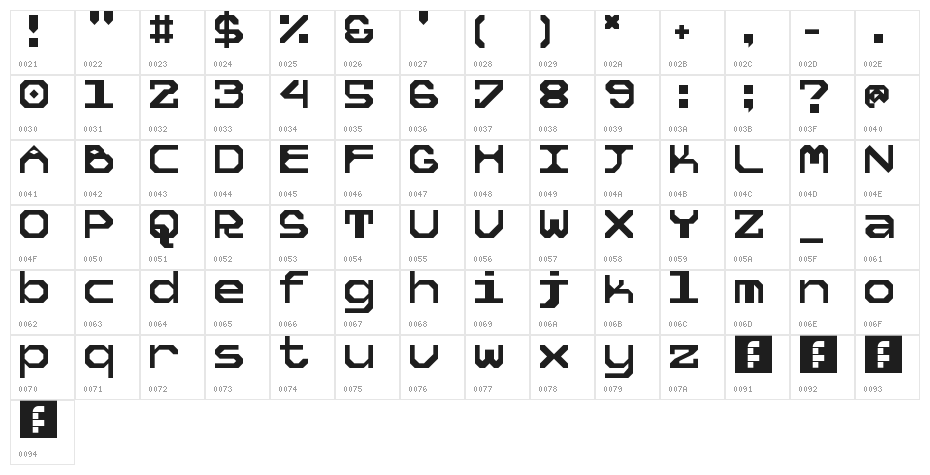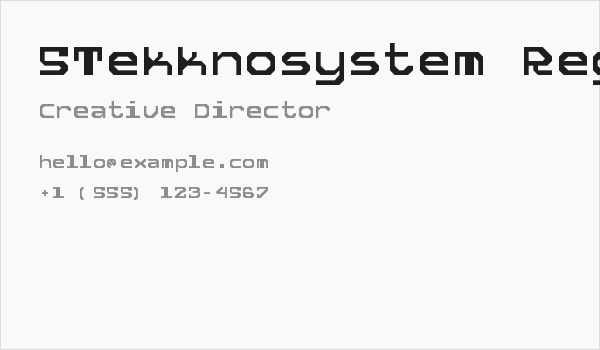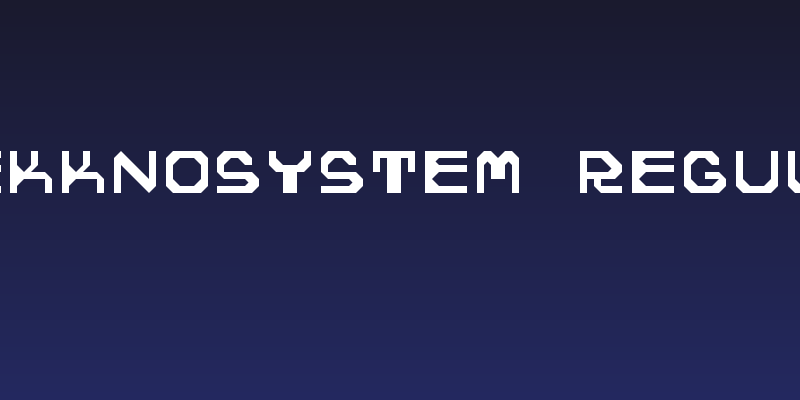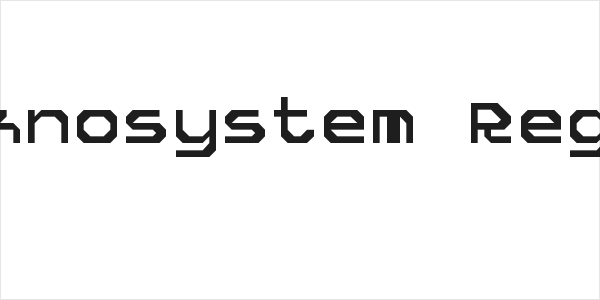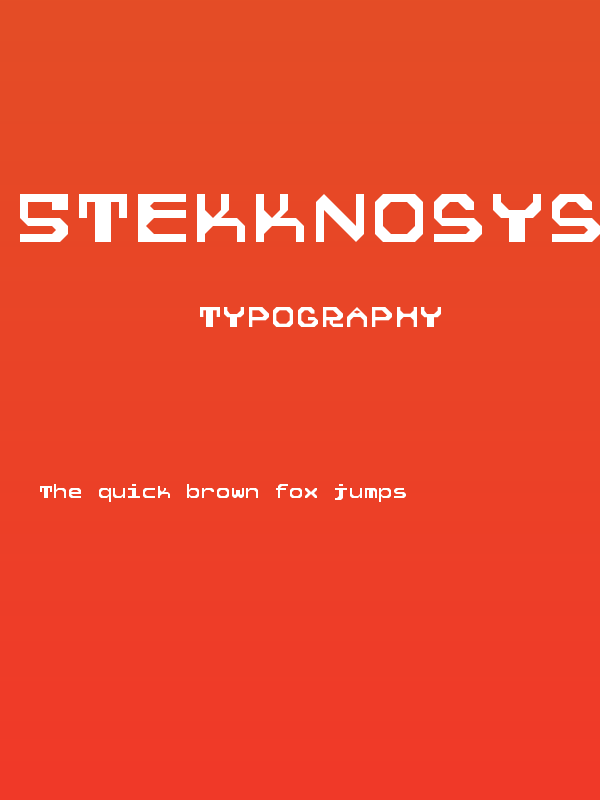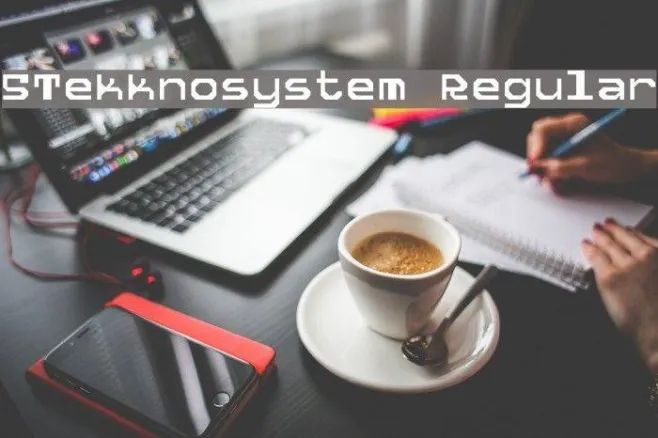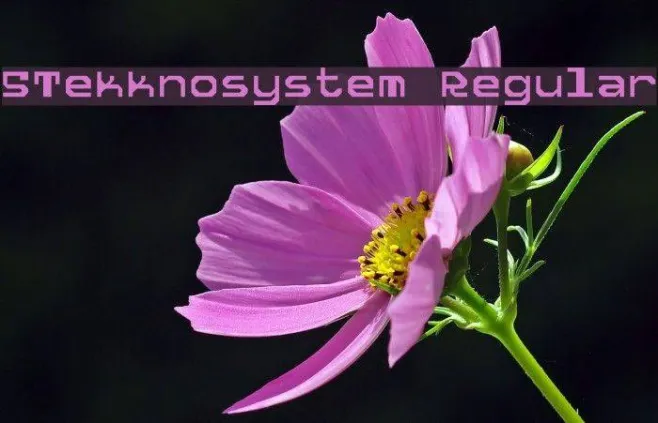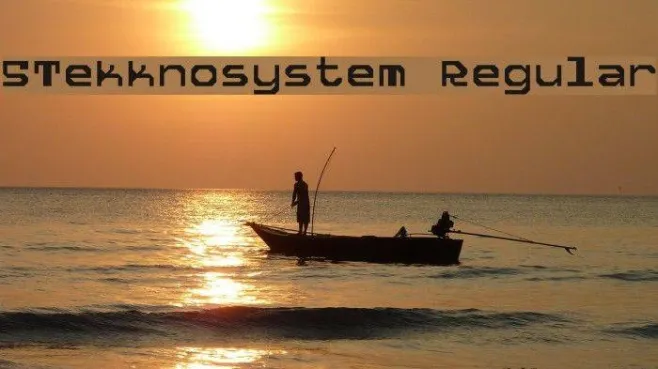
5Tekknosystem Regular Font
5Tekknosystem Regular Description
This font features a bold, geometric style with a futuristic and digital aesthetic. The characters are constructed with sharp angles and straight lines, giving it a mechanical and technical appearance. The uppercase and lowercase letters maintain a consistent height, contributing to a uniform look. The numerals and special characters follow the same design principles, ensuring cohesion across all glyphs. This font is ideal for projects that require a modern and edgy feel, such as technology branding, video game titles, or sci-fi themed designs.
| Proposed Projects | Technology branding, video game titles, sci-fi themed designs, digital interfaces. |